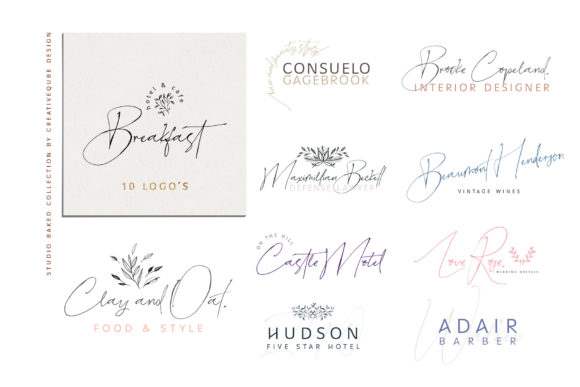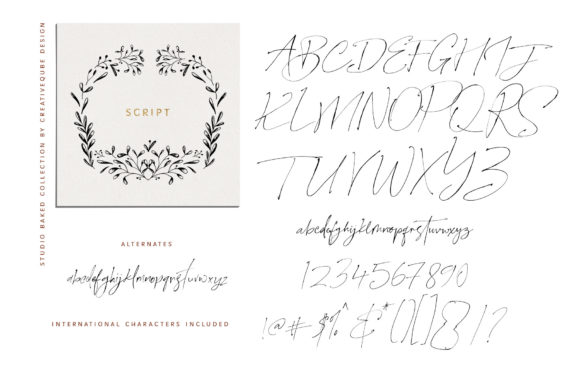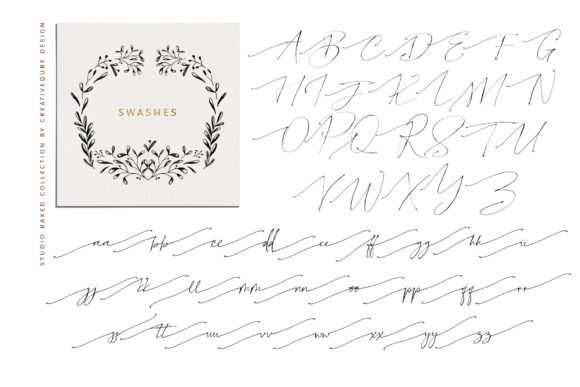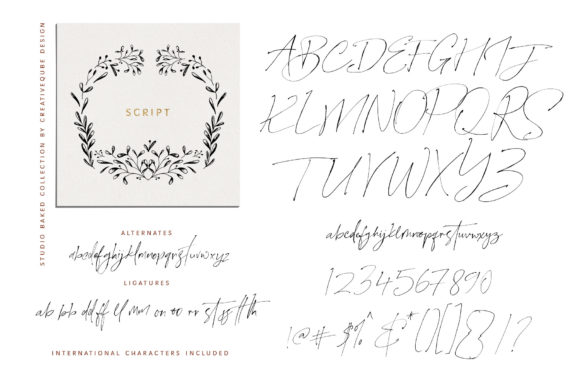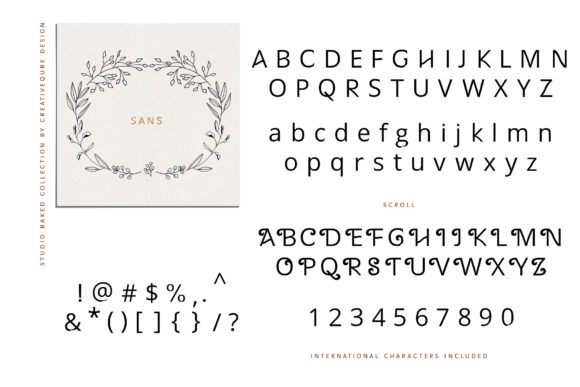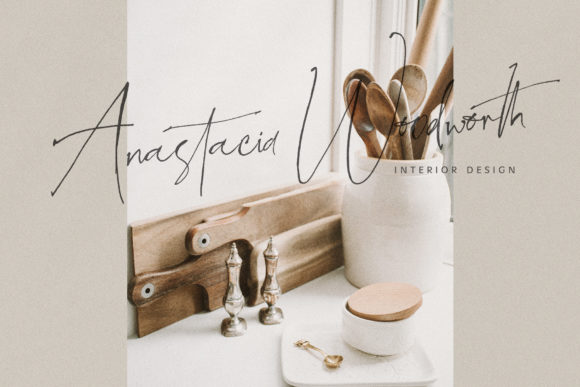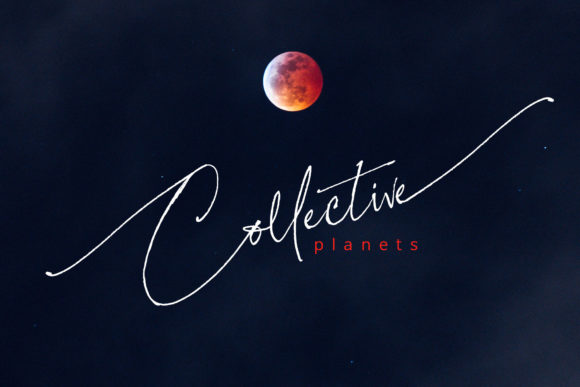
Studio Baked Font
**Studio Baked Font: Thin Lettered Gracefulness**
Introducing *Studio Baked Font*, a thin-lettered and gracefully scripted typeface that captures attention with its ravishing style. This font is crafted to add an elegant touch to your designs, making it perfect for creating gorgeous wedding invitations, beautiful stationary art, eye-catching social media posts, and much more.
The allure of *Studio Baked* lies in its delicate and thin lettering, exuding a sense of gracefulness that enhances the visual appeal of your projects. Each stroke is carefully designed to create a font that feels both refined and stylish.
Whether you’re working on wedding-related designs, artistic stationary, or engaging social media content, *Studio Baked Font* adapts effortlessly. Its thin lettered elegance becomes the key element that transforms your creations into visually stunning pieces.
Consider *Studio Baked* as your go-to choice when you seek a font that combines thin lettering with graceful script, adding sophistication to your design projects. Let each letter contribute to an artistic and refined visual experience, turning your work into a true reflection of style.
In summary, *Studio Baked Font* is more than just a typeface; it’s an invitation to infuse your designs with thin-lettered gracefulness. Embrace its delicate strokes, allowing it to become the key element that enhances the beauty of your creative endeavors.